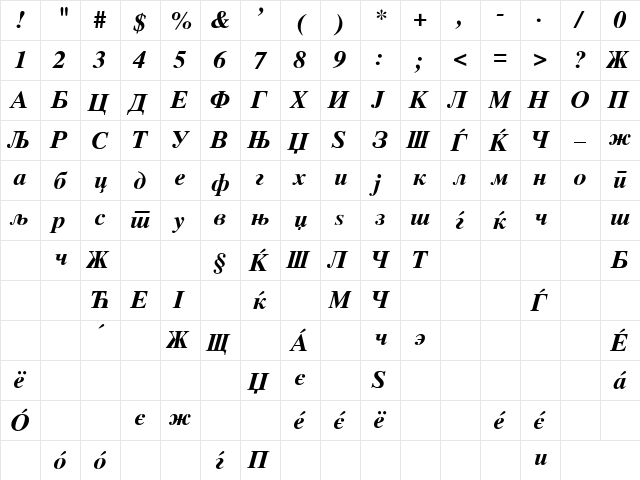
MakCirT Bold Italic
Design Context for MakCirT Typeface
MakCirT takes a measured approach to typography — its balanced proportions and neutral character make it a reliable workhorse for both digital and print work. The slanted form adds forward momentum and visual energy. The heavy weight commands attention and anchors typographic hierarchies.